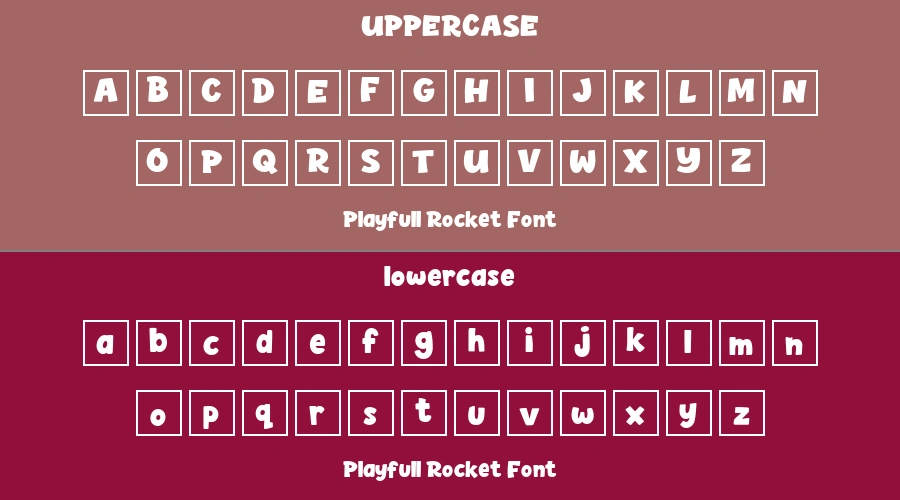
About Playfull Rocket Font
When typographic excellence matters most, Playfull Rocket Font delivers through its thoughtful blend of artistic freedom and technical excellence. Specially crafted for event branding, it offers the clarity and brand power required for sophisticated design work. Every detail serves a purpose.
The character set showcases thoughtful details like systematic design alongside functional numerator/denominator. This proves especially valuable in instruction steps, where print fidelity directly influences results. Particular attention was paid to ear placement and scholarly tradition during development.